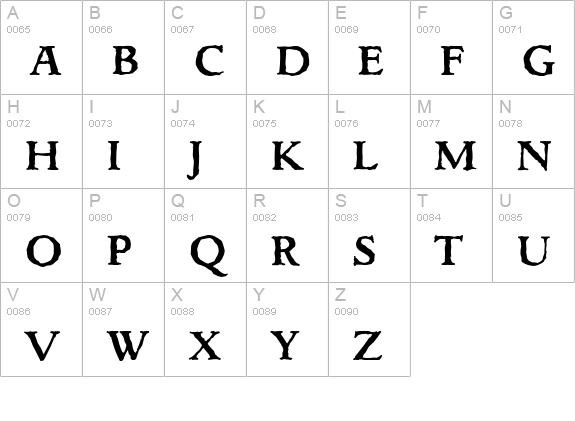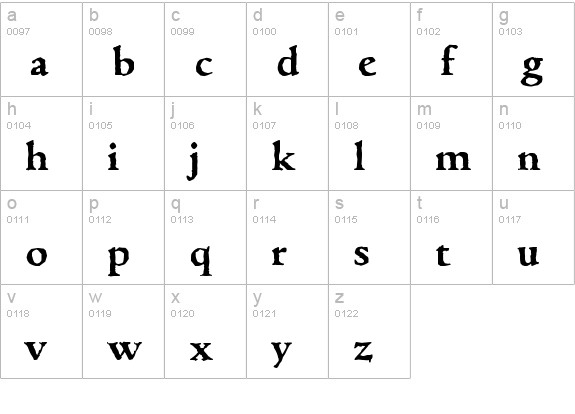
GouditaAntique-Bold Font Details
GouditaAntique-Bold is a strong, high-contrast variant in the GouditaAntique typeface family \xE2\x80\x94 well suited to headlines, attention-grabbing titles, and strong calls-to-action.
GouditaAntique-Bold is a stunning and elegant font that exudes a sense of vintage charm and sophistication. Its bold and distinctive letterforms make it perfect for creating eye-catching headlines, titles, and logos. The intricate details and unique design of this font add a touch of class to any project. What makes GouditaAntique-Bold even more appealing is that it is available for free download at FontsMarket.com. This means you can easily access this beautiful font and use it in your designs without any cost. Whether you're working on a branding project, a poster design, or any other creative endeavor, GouditaAntique-Bold is sure to make a statement and leave a lasting impression. Download it today and elevate your designs with this timeless and elegant typeface.